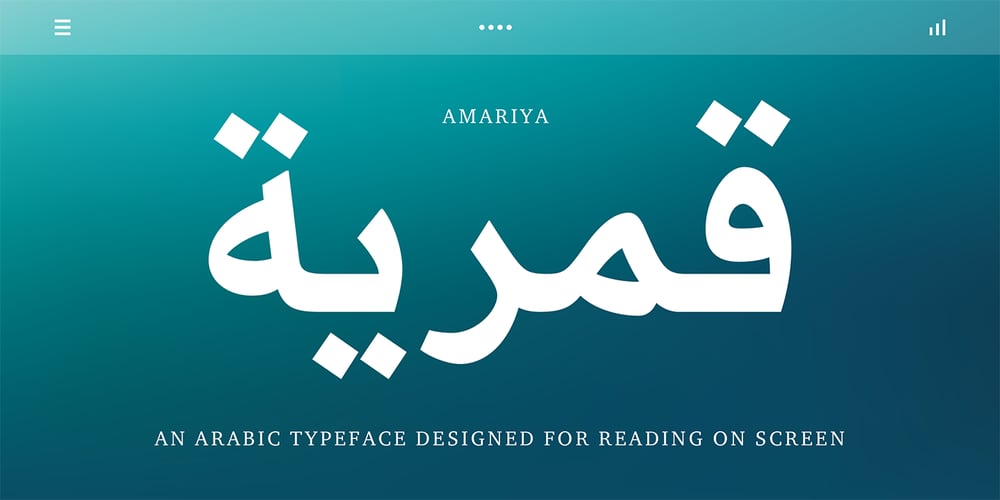
Amariya Font Family was designed by Matthew Carter, Nadine Chahine and published by Monotype. Amariya contains 9 styles and family package options. Designed by Nadine Chahine, the Amariya™ typeface family is intended for long form, on-screen textual content. It supports the Arabic, Persian and Urdu languages. The design is consistent with traditional text typeface models popular in the Middle East, but has a lower level of stroke contrast optimized for on-screen reading. The family is available in nine weights ranging from a light hairline to a very bold black. The middle weights are intended for setting text copy while the extreme hairline and black designs are best suited for headlines, sub heads and similar applications. The Amariya family can be used for numerous projects from branding to blogs, in a variety of interactive design environments on both large and small screens. The fonts include the ITC Charter design by Matthew Carter as a Latin companion.